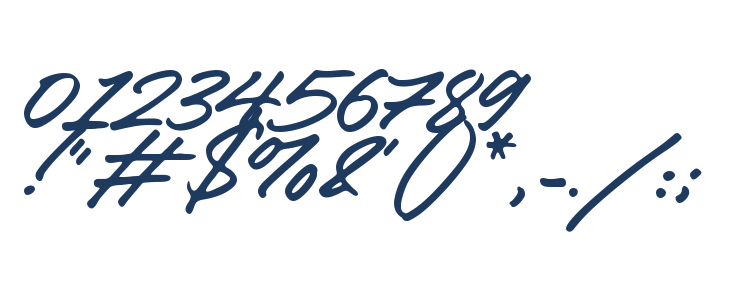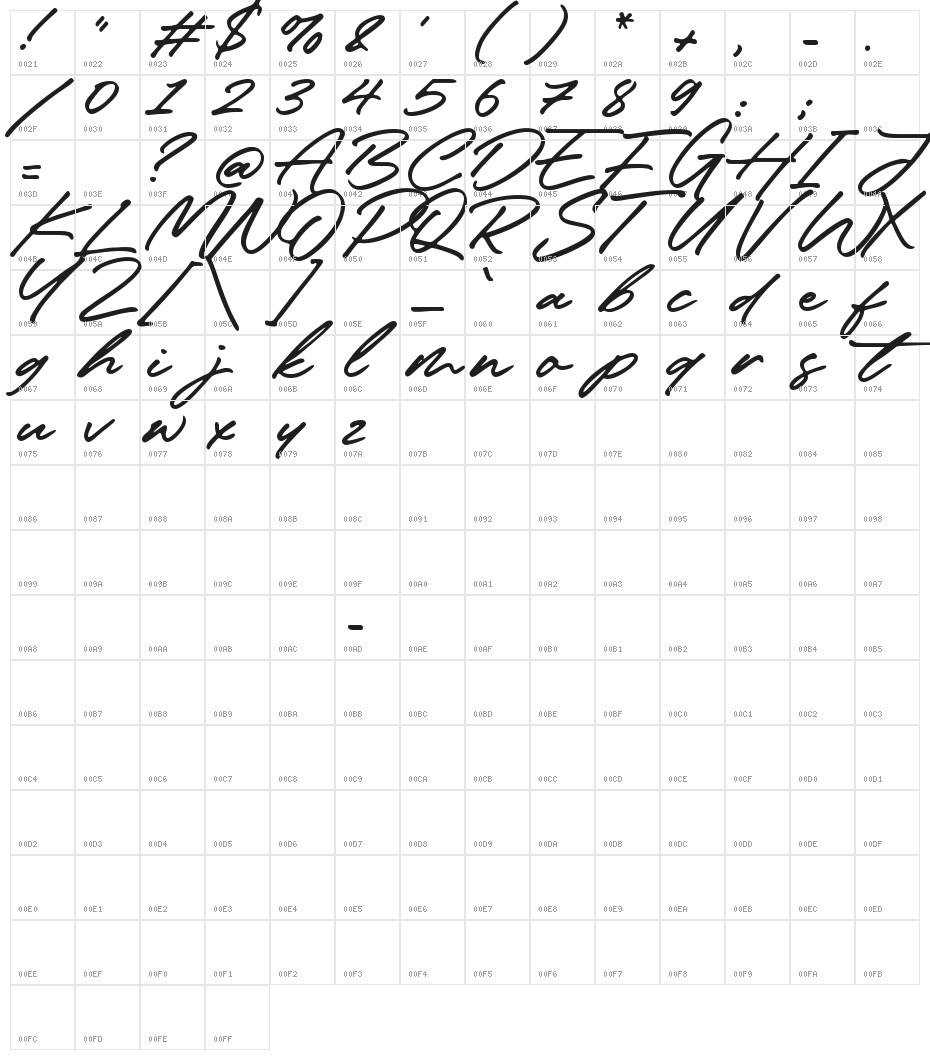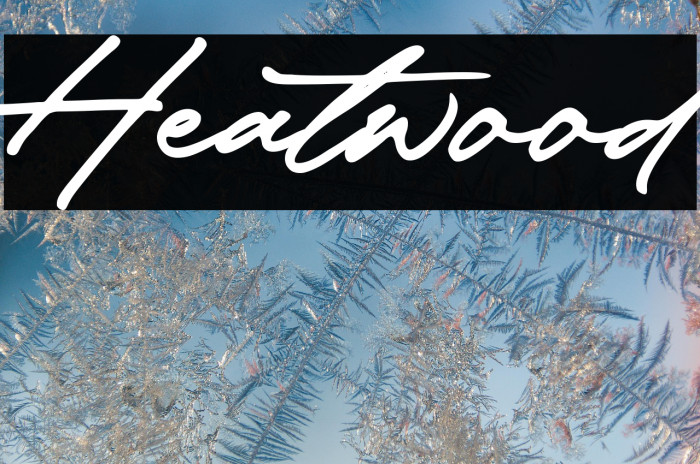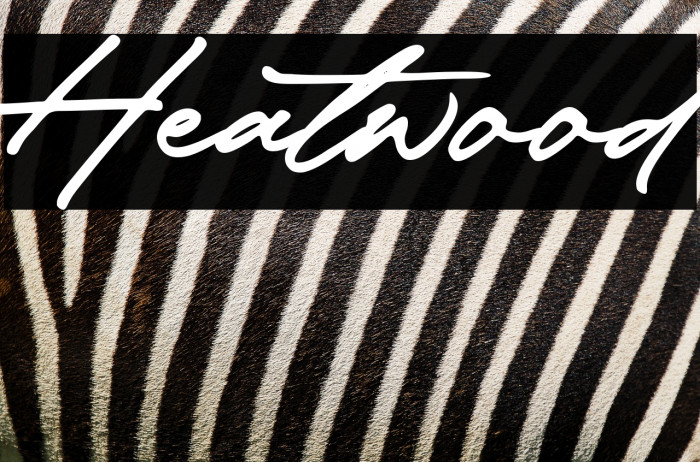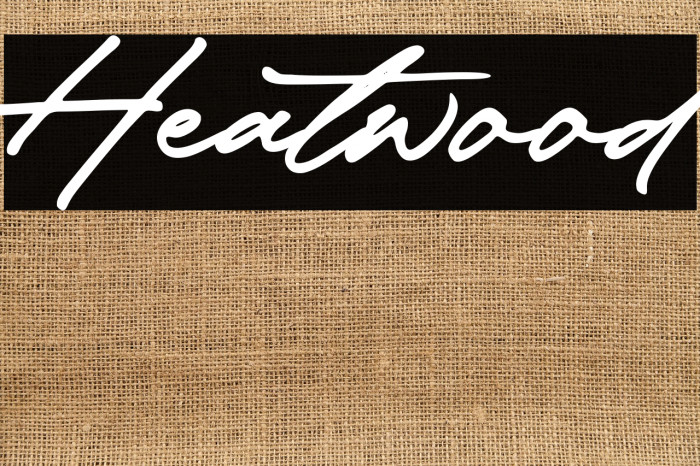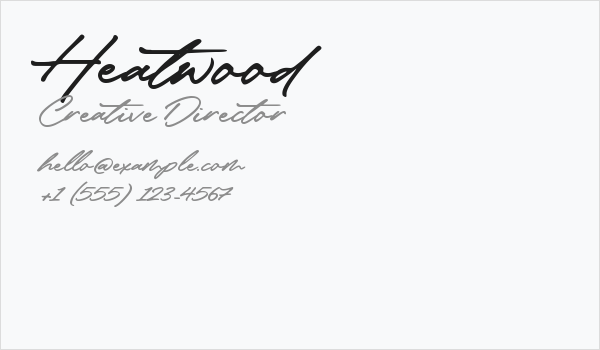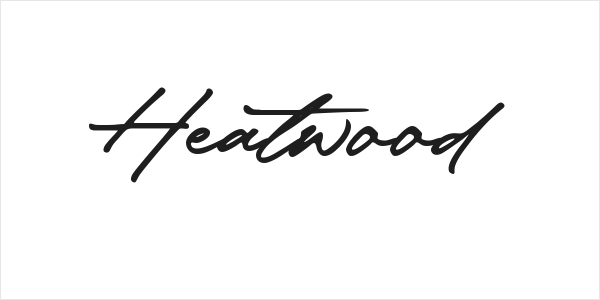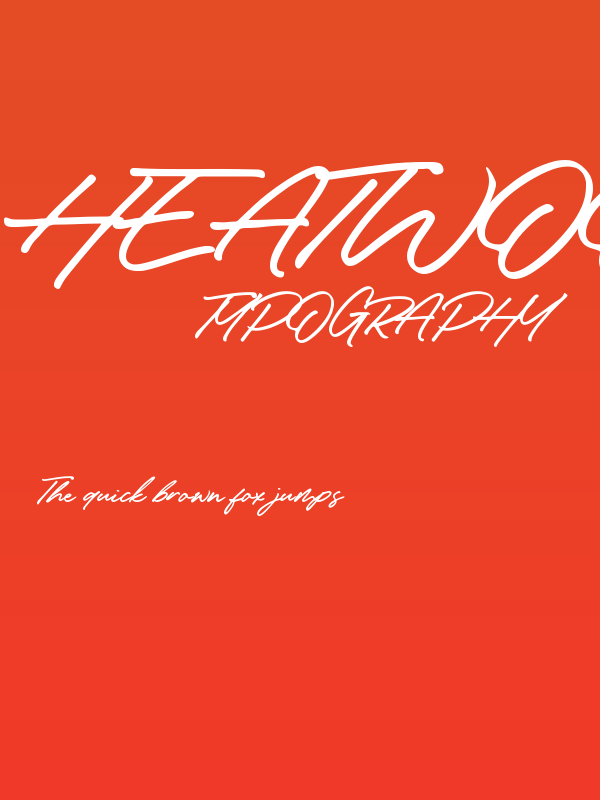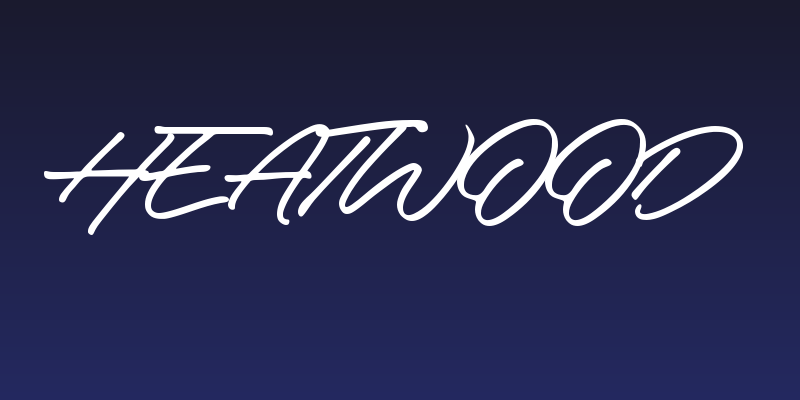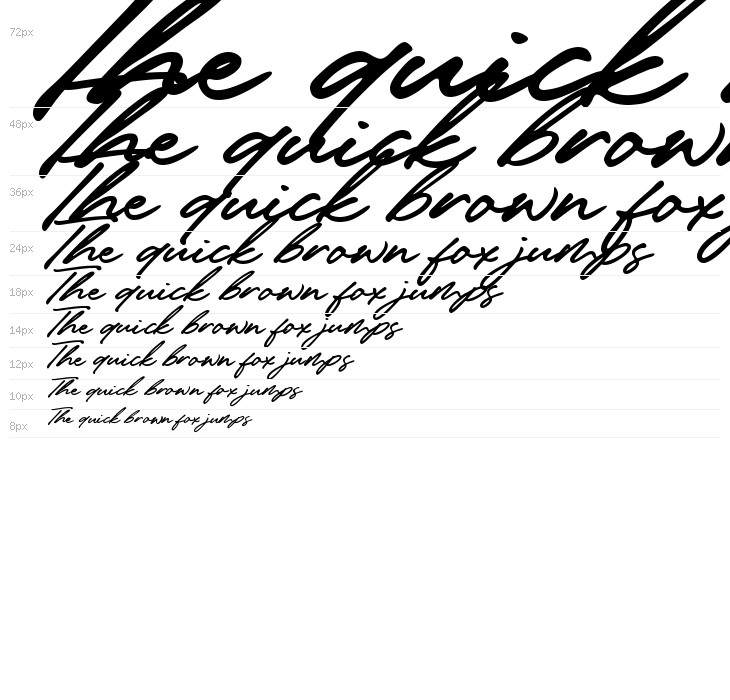
Heatwood Font
Heatwood Description
This font exudes a dynamic and expressive style, characterized by its fluid, cursive script that mimics natural handwriting. The letters are interconnected with smooth, flowing strokes, giving it a personal and artistic touch. The uppercase letters maintain a consistent height, while the lowercase letters vary slightly in size, adding to the organic feel. The numerals and special characters are crafted with the same attention to detail, ensuring uniformity across the font. The overall appearance is elegant yet casual, making it suitable for projects that require a personal or creative flair.
| Proposed Projects | Ideal for invitations, greeting cards, branding, and artistic projects. |